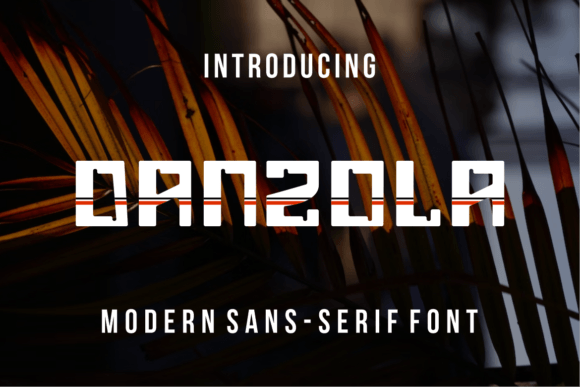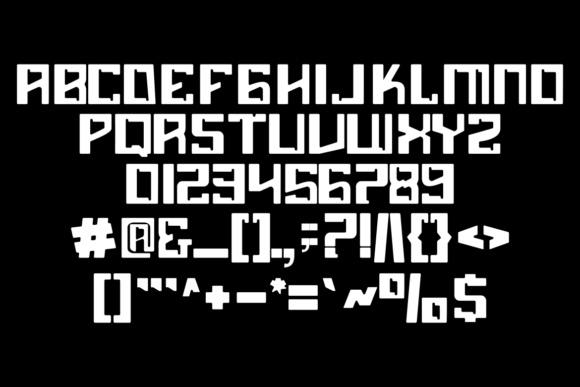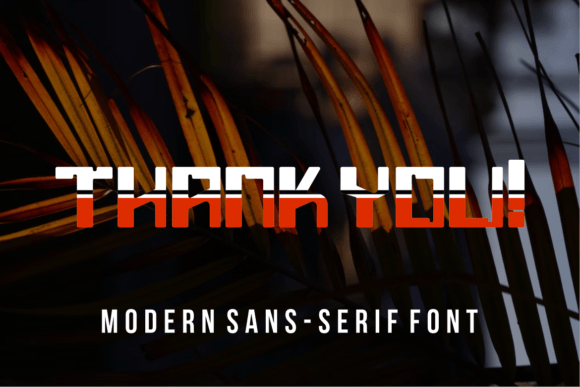
Danzola Font: The Modern Sans Serif Choice for Designers and Crafters
In the world of typography, fonts play a crucial role in conveying messages, expressing emotions, and creating visual identities. For designers and crafters, finding the right font can make all the difference in bringing their creative projects to life. One such font that has gained popularity in recent times is the Danzola Font. In this article, we’ll explore what makes Danzola a versatile and charming font, perfect for a wide range of design applications.
What is Danzola Font?
Danzola is a modern sans serif font that exudes charm and boldness. Its clean lines, elegant curves, and precise craftsmanship make it an excellent choice for designers seeking a font that can add a touch of sophistication to their work. The font’s sans serif design ensures that it remains legible and crisp, even at smaller sizes, making it perfect for use in various design projects.
Key Features of Danzola Font
- Modern Sans Serif Design: Danzola’s sleek and contemporary design makes it an excellent choice for modern designs, from logos and branding to website headers and magazine covers.
- Charming and Bold: The font’s boldness and charm make it perfect for creating eye-catching typography quotes, signage, and packaging designs.
- High Versatility: Danzola is suitable for a wide range of projects, including signature, stationery, logo, wedding, typography quotes, magazine or book cover, website header, clothing, branding, packaging design, and more.
- Ease of Use: The font is easy to read and works well in both digital and print formats, making it a great choice for designers and crafters who work across multiple mediums.
Design Applications for Danzola Font
Danzola’s versatility makes it an excellent choice for various design applications. Here are some of the ways designers and crafters can use this font:
Logo and Branding Design
Danzola’s bold and charming design makes it perfect for creating memorable logos and branding materials. Its modern sans serif design ensures that the font remains legible and scalable, even at smaller sizes.
Typography Quotes and Signage
The font’s boldness and charm make it ideal for creating eye-catching typography quotes and signage. Designers can use Danzola to create inspiring quotes, posters, and signs that grab attention.
Wedding and Stationery Design
Danzola’s elegant design makes it suitable for wedding and stationery design. Designers can use the font to create beautiful wedding invitations, stationery, and other paper goods.
Packaging Design and Product Labeling
The font’s modern sans serif design and boldness make it perfect for packaging design and product labeling. Designers can use Danzola to create eye-catching labels and packaging materials that stand out on store shelves.
Tips for Using Danzola Font Effectively
To get the most out of Danzola, here are some tips for using the font effectively:
- Experiment with Font Sizes: Danzola works well at various font sizes, from small to large. Experiment with different sizes to find the perfect fit for your design.
- Play with Colors: The font’s boldness and charm make it perfect for use with bright and bold colors. Experiment with different color combinations to create eye-catching designs.
- Pair with Other Fonts: Danzola can be paired with other fonts to create interesting and dynamic typography. Experiment with different font combinations to find the perfect match.
Danzola Font is a versatile and charming modern sans serif font that is perfect for designers and crafters seeking a bold and elegant font for their creative projects. With its clean lines, elegant curves, and precise craftsmanship, Danzola is suitable for a wide range of design applications, from logos and branding to typography quotes and packaging design. By following the tips outlined in this article, designers and crafters can use Danzola to create stunning designs that grab attention and leave a lasting impression.